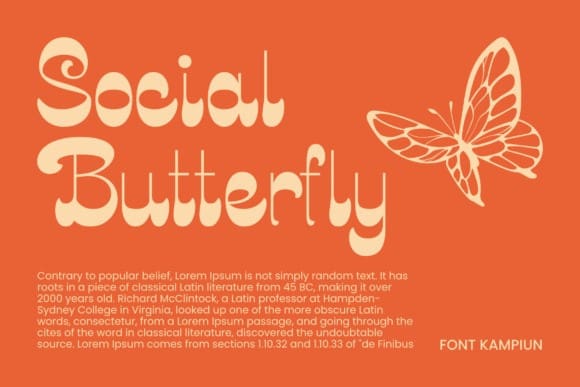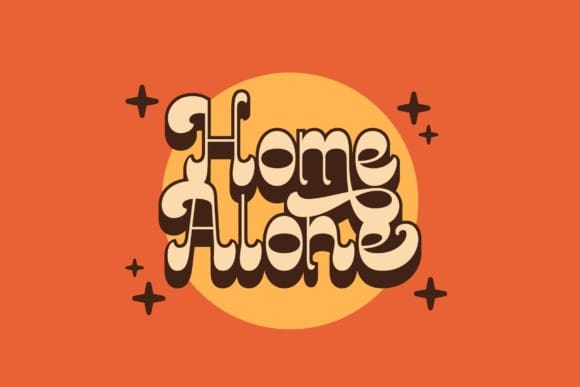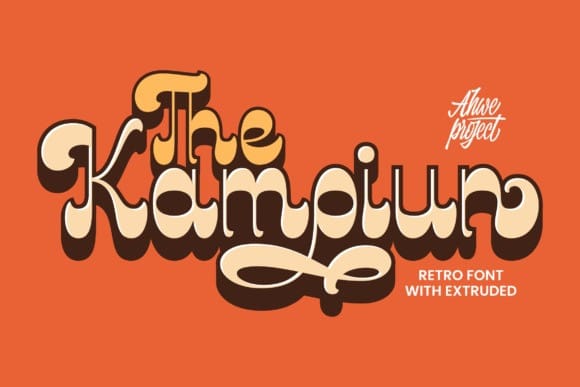
Kampiun Retro Font
Kampiun Retro Font, With its captivating reverse retro script style, Kampiun brings a sense of groovy nostalgia and smooth elegance. No matter the topic, this font will be an incredible asset to your fonts’ library, as it has the potential to elevate any creation.